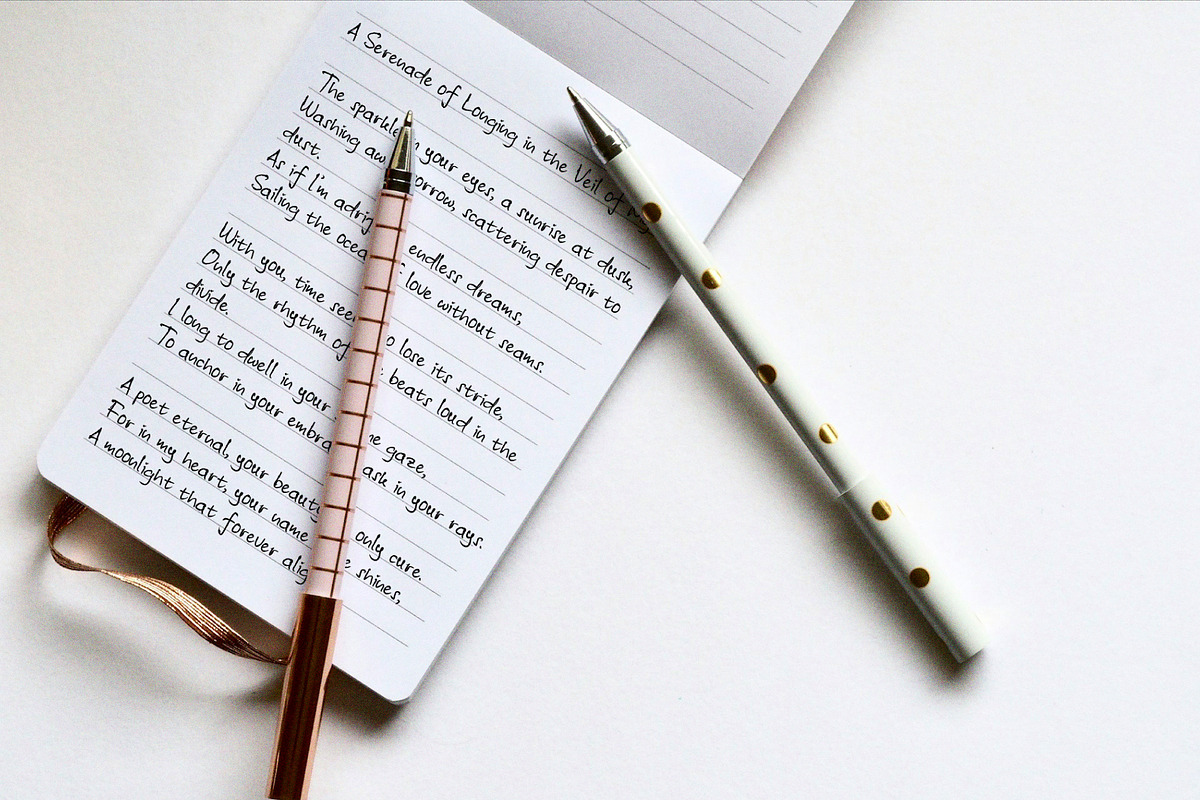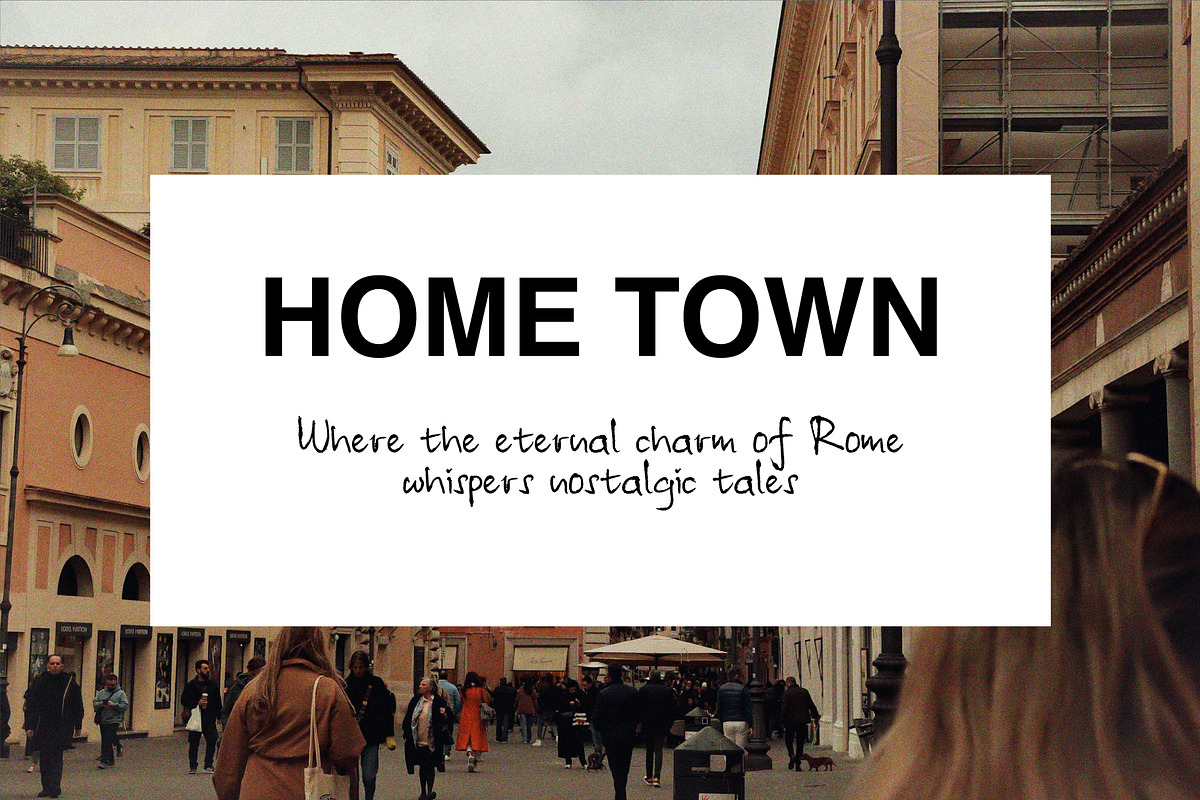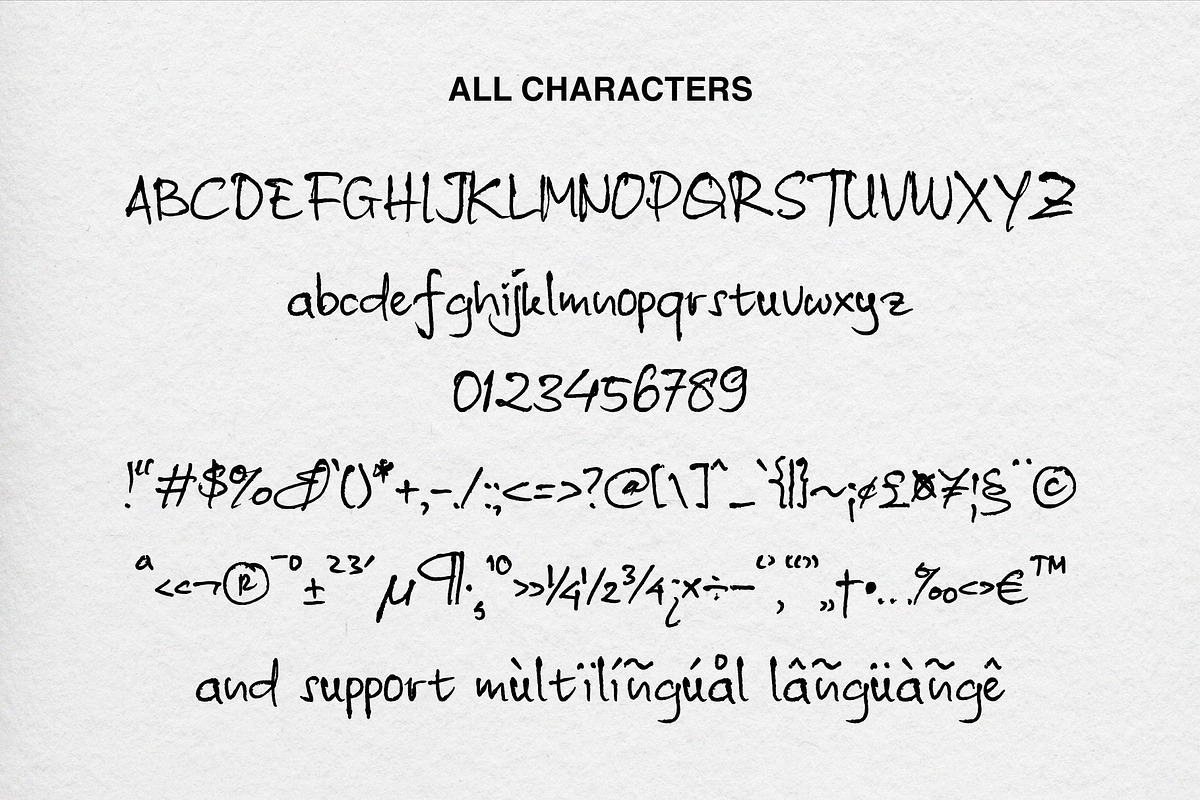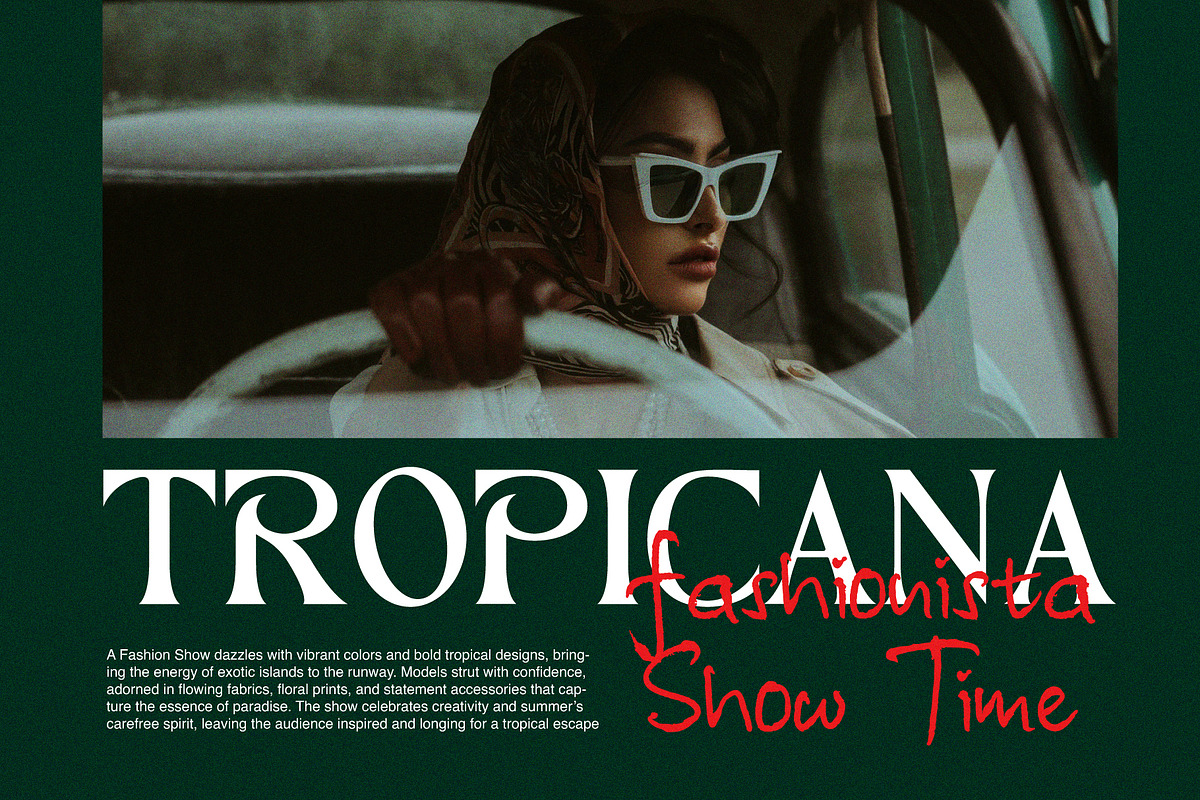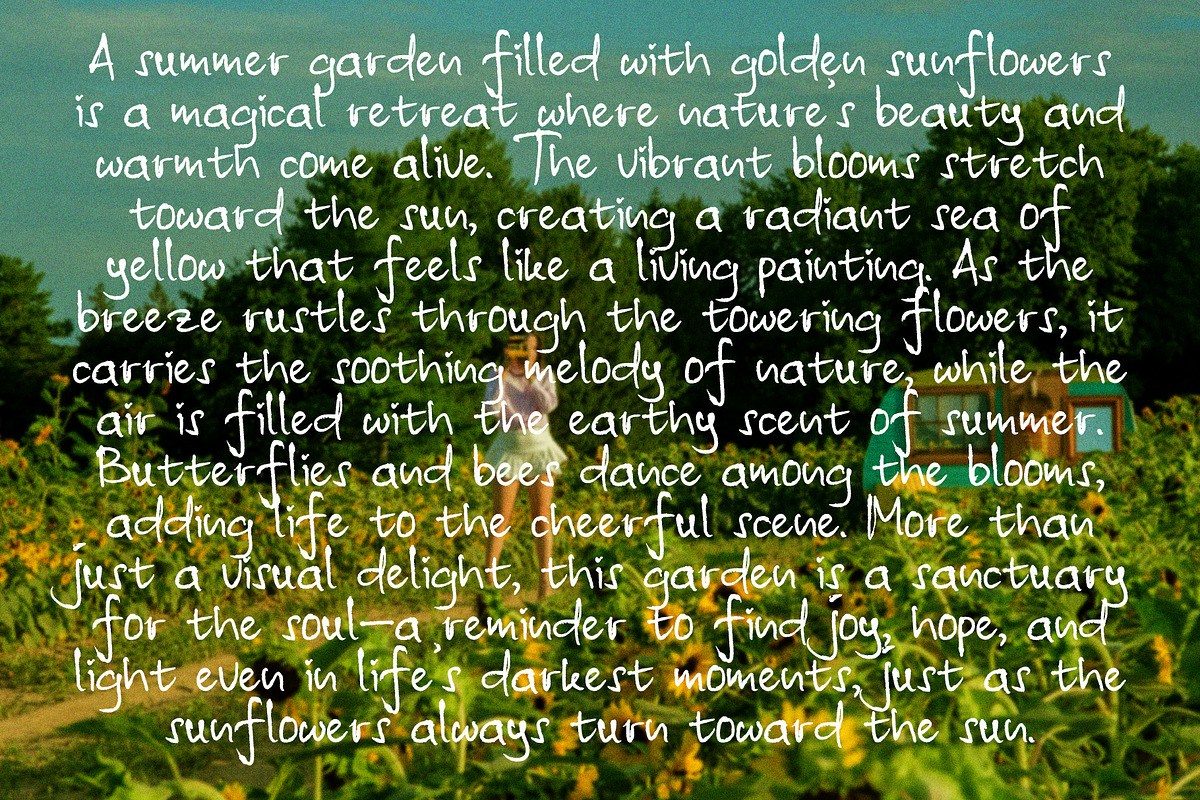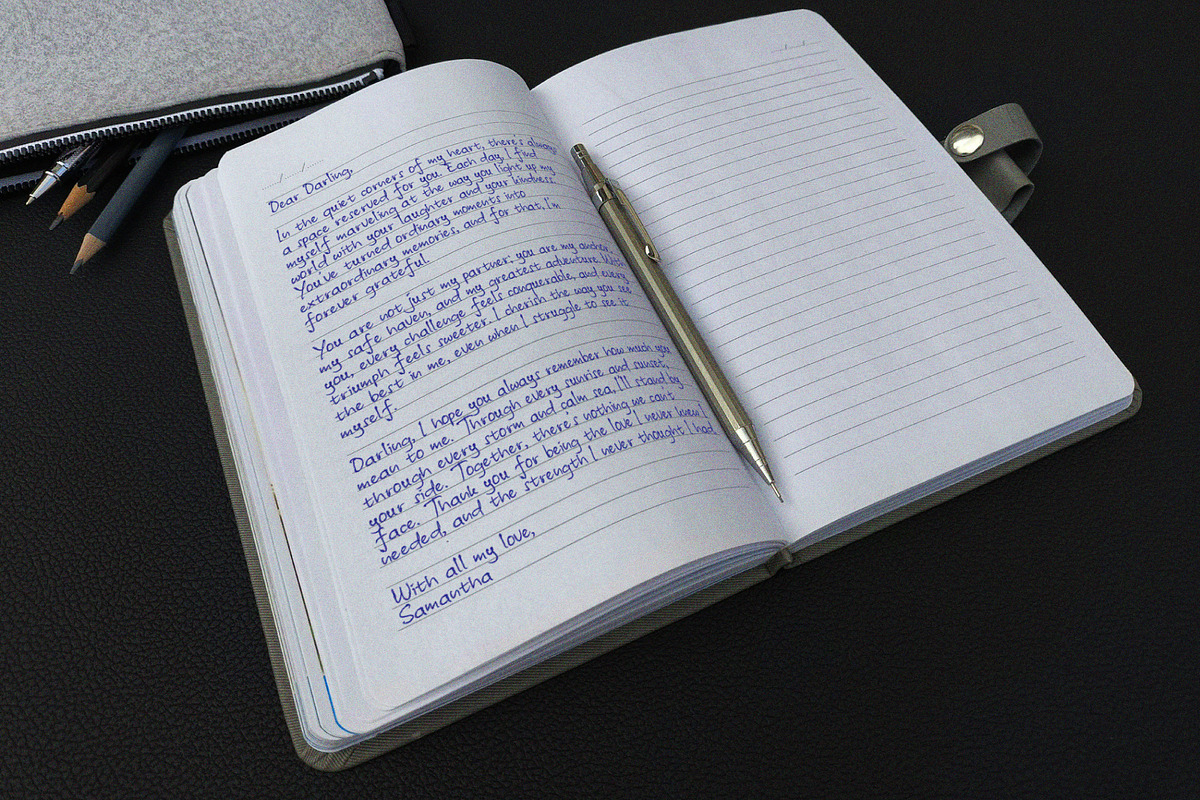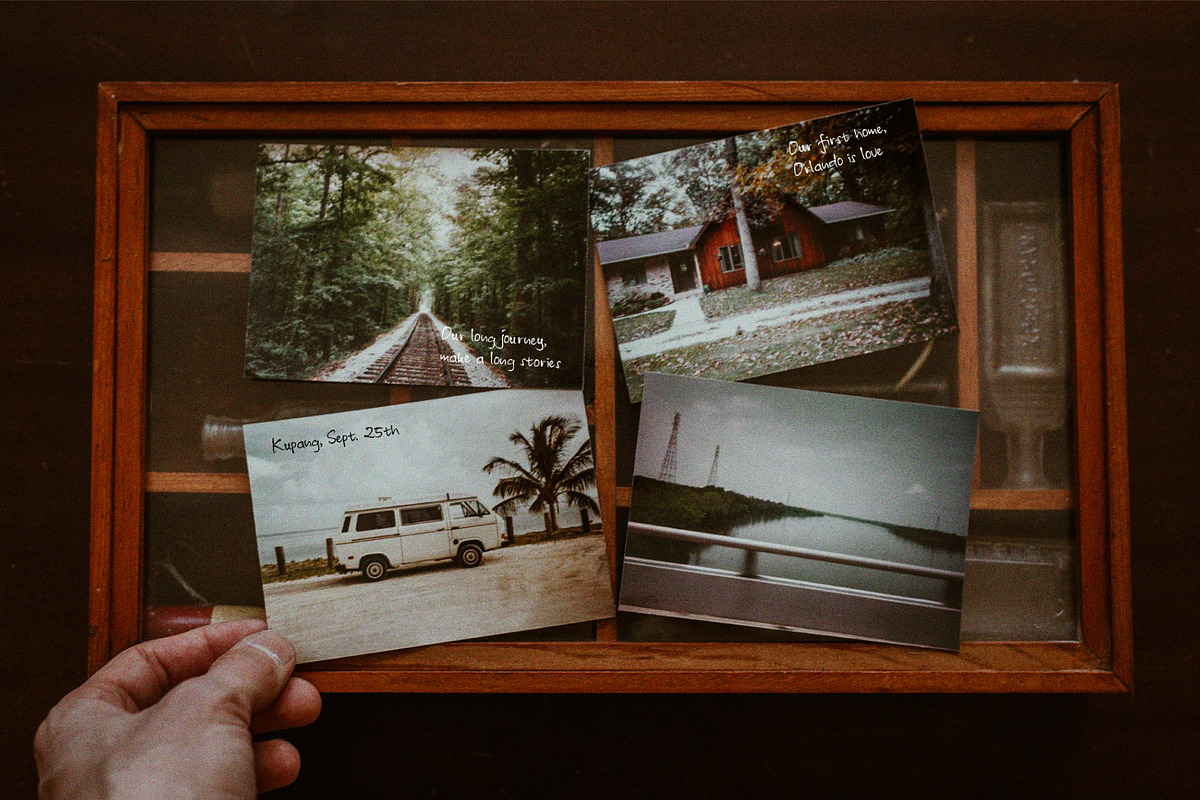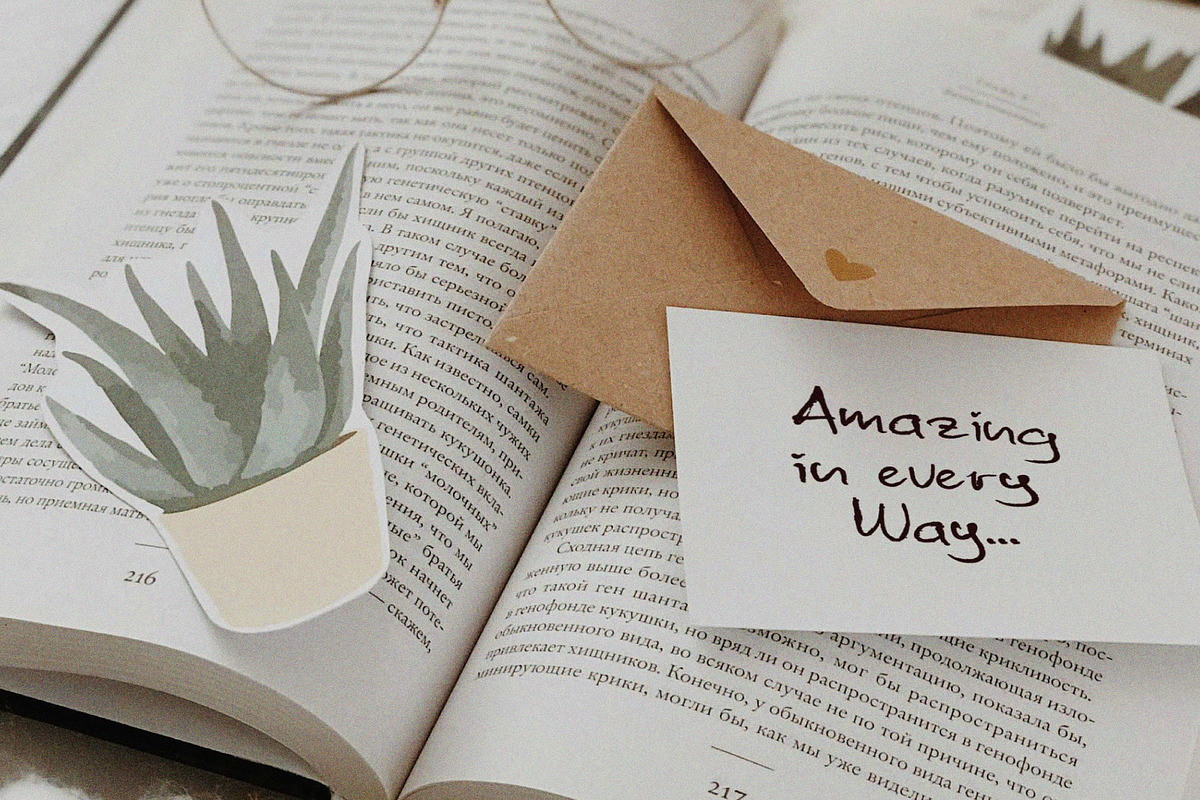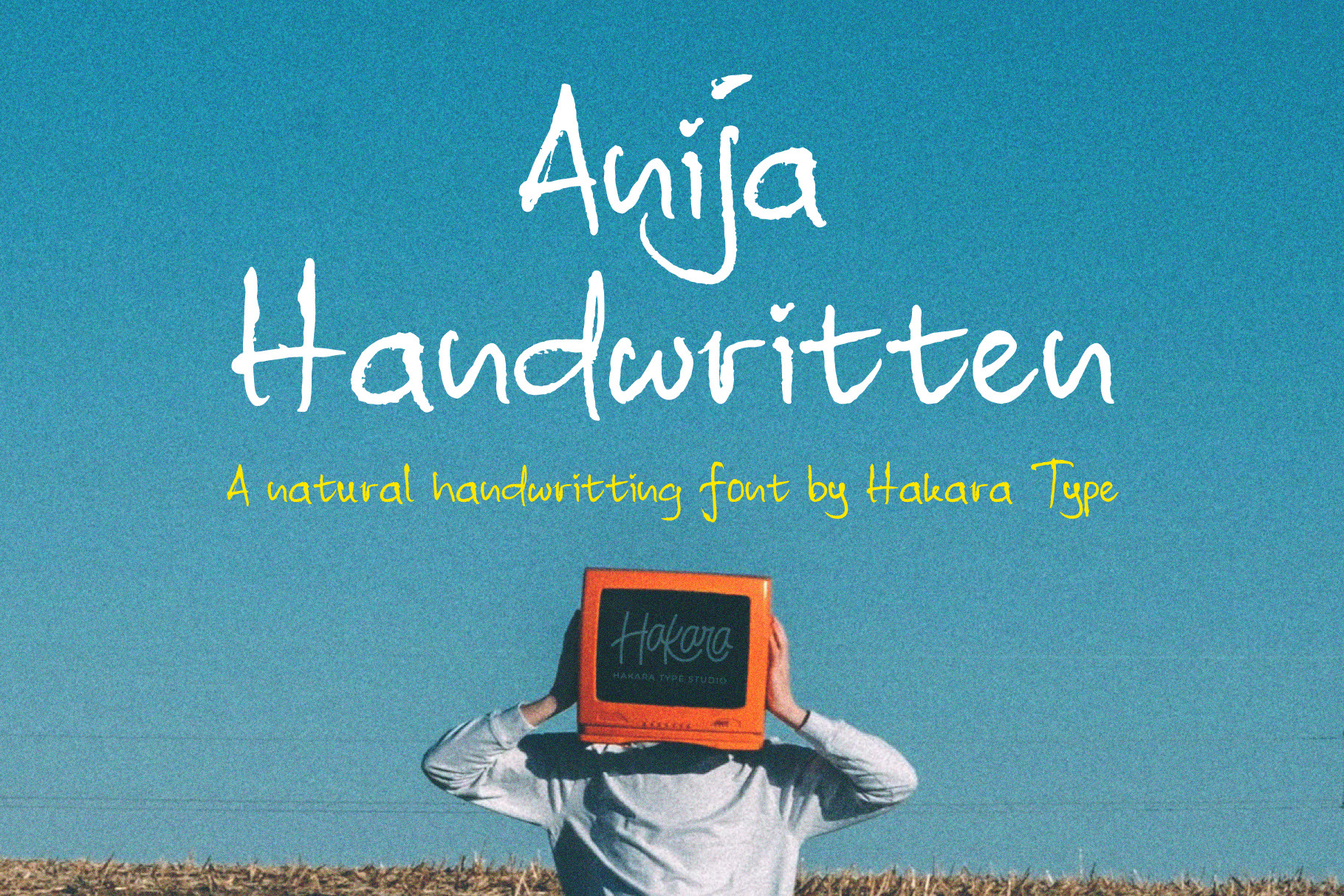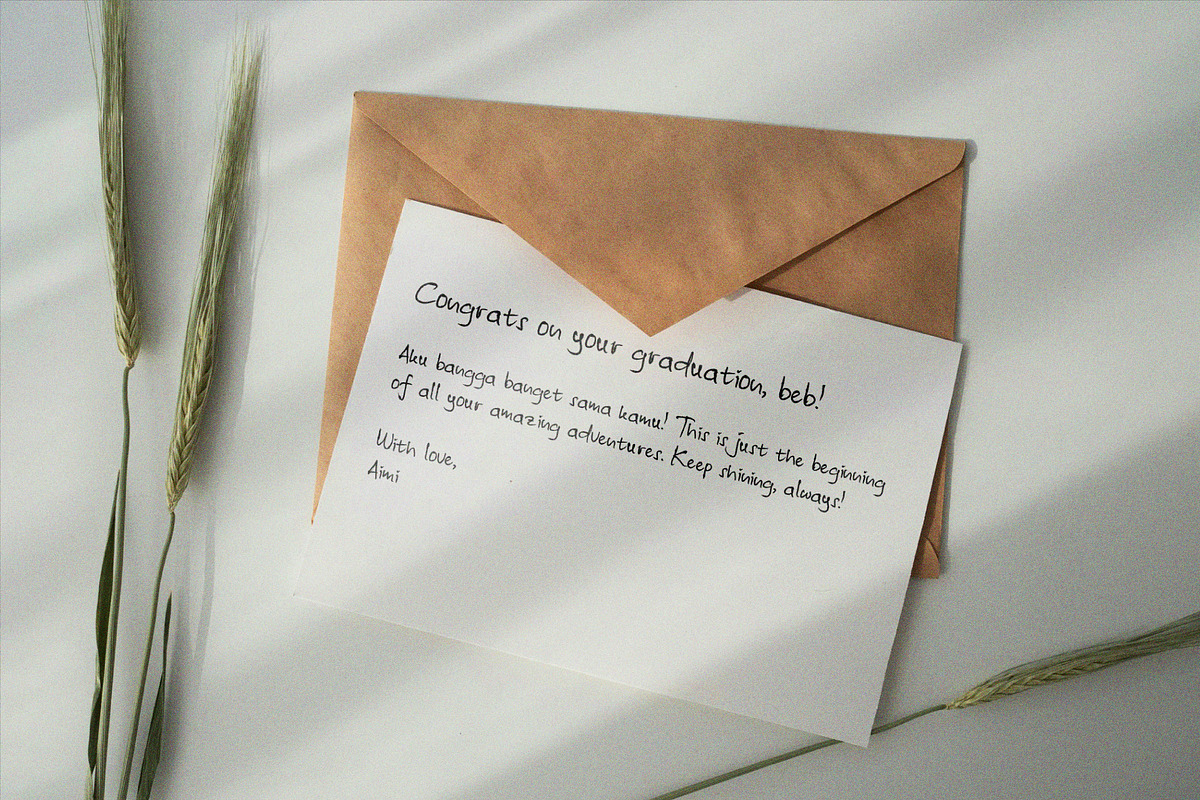
Anija - Handwritten Font
Anija font is a handwritten typeface that captures the authenticity and warmth of manual strokes. Inspired by ballpoint pen marks on paper, this font delivers a natural, realistic texture, perfect for adding a personal touch to your designs. Ideal for invitations, journals, branding, greeting cards, and various creative projects, Anija Font brings an irreplaceable charm and cozy feel to every piece. Anija comes with uppercase, lowercase, numbers, function, and included multilingual support.